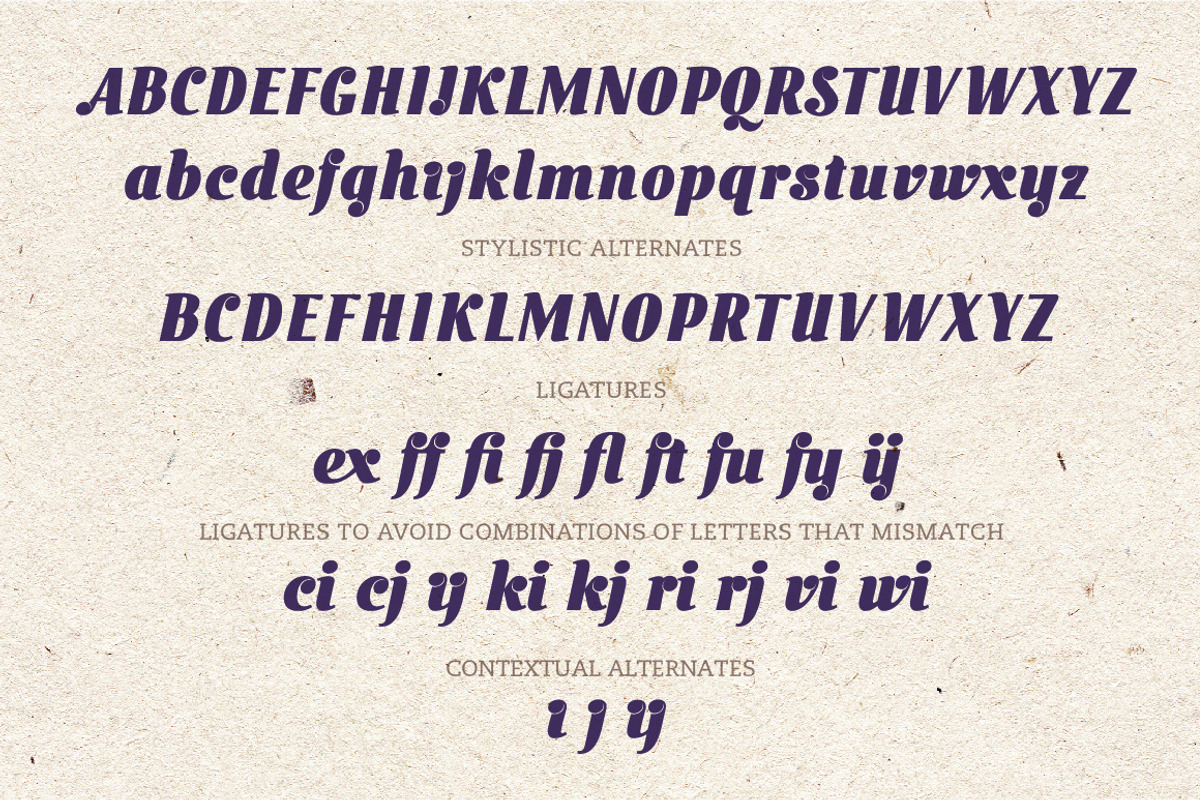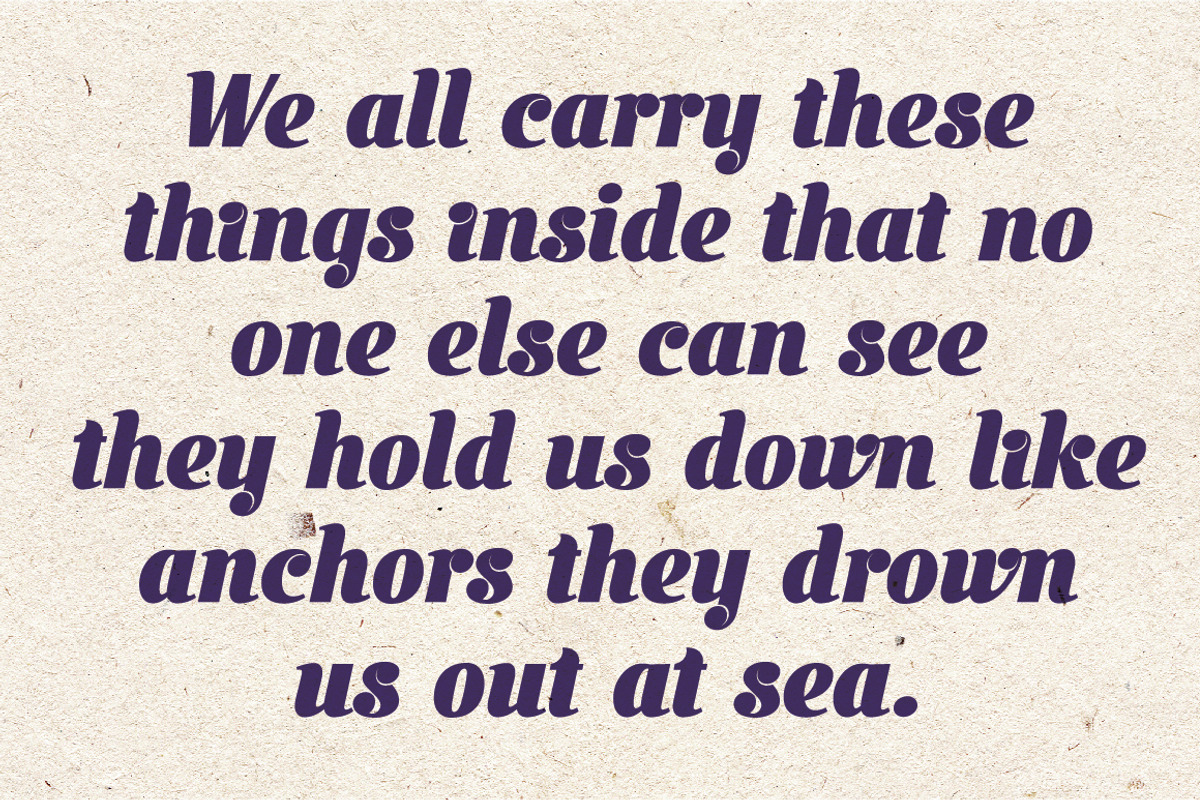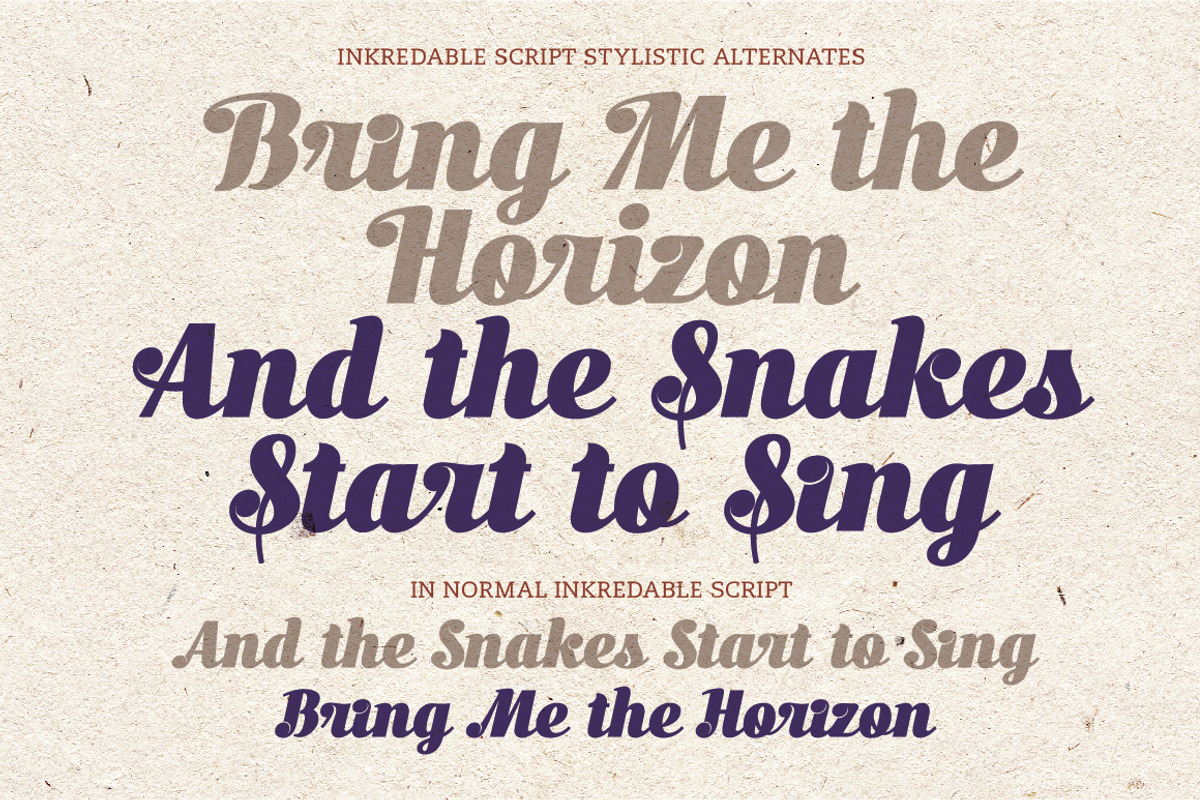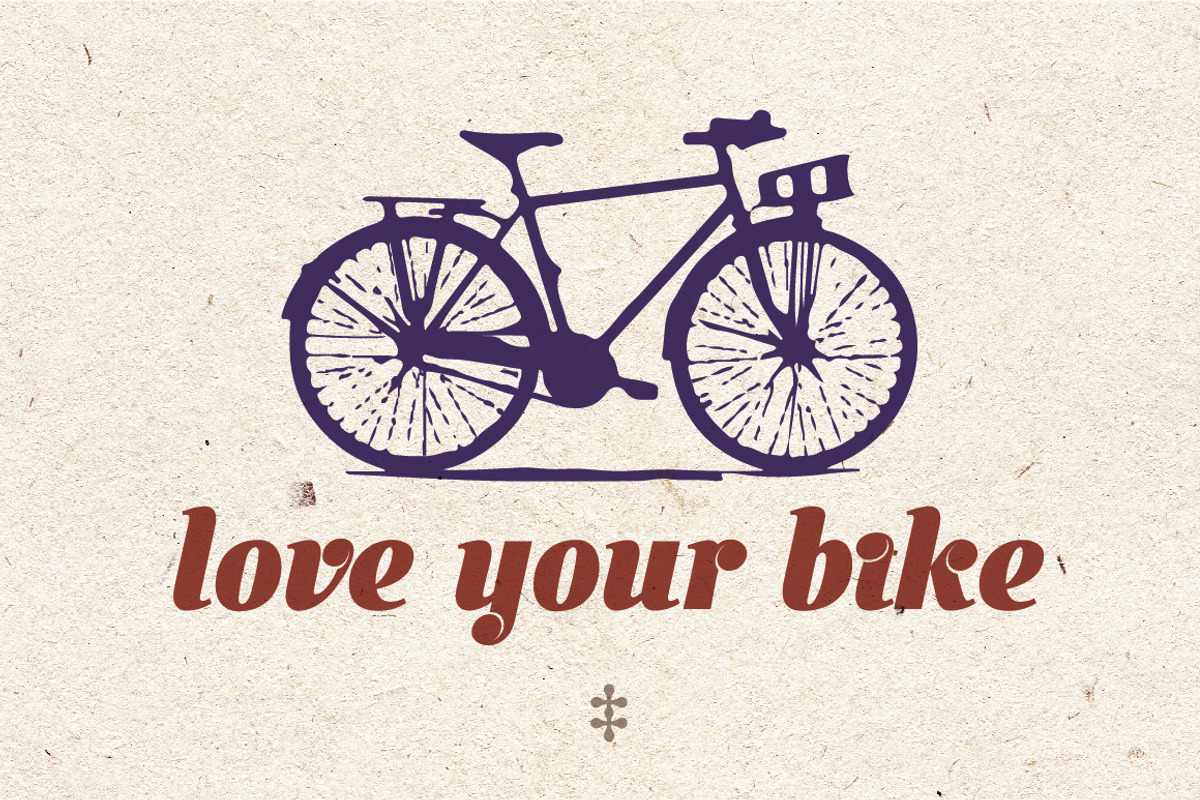
Inkredible
Inkredible by TypeFaith Fonts is a font selected for branding, posters, packaging, typography.
- It contains ligatures, alternatives, and some special characters.
- Inkredible One
- Inkredible Script
Why Inkredible is worth a look
Inkredible by TypeFaith Fonts fits naturally into Branding, posters, packaging, typography.